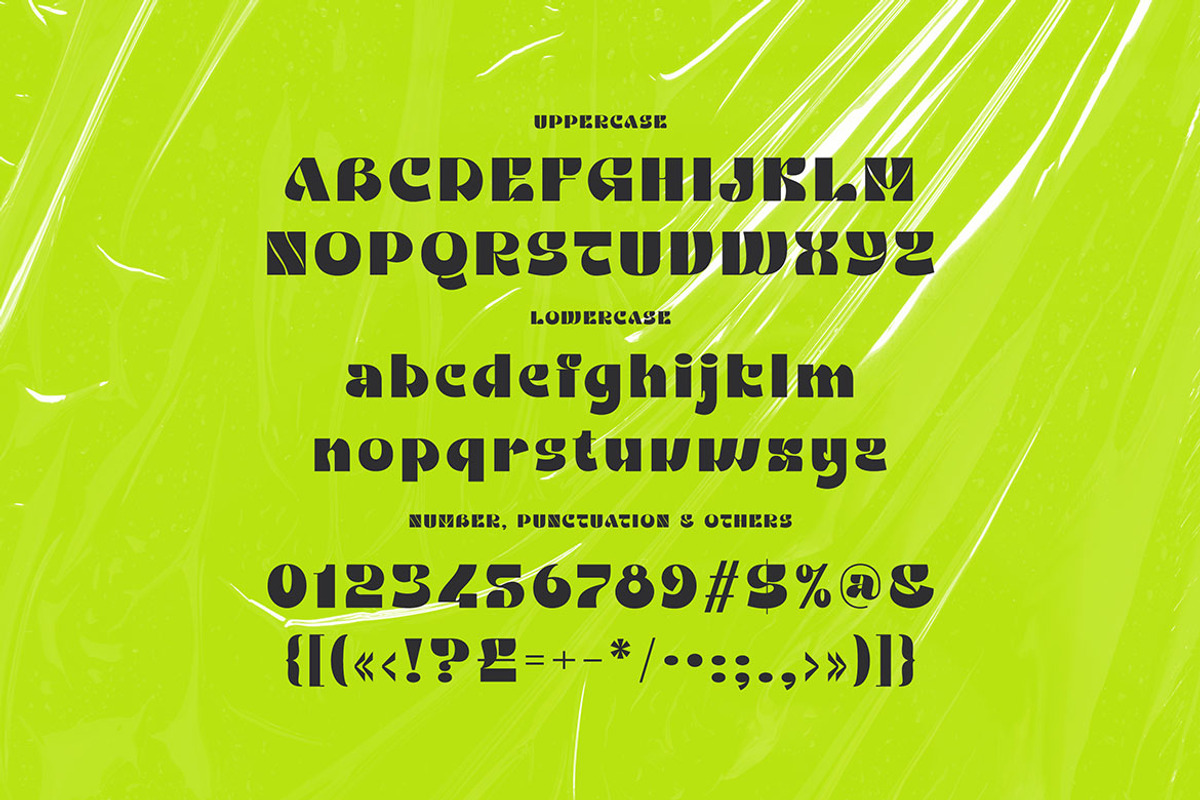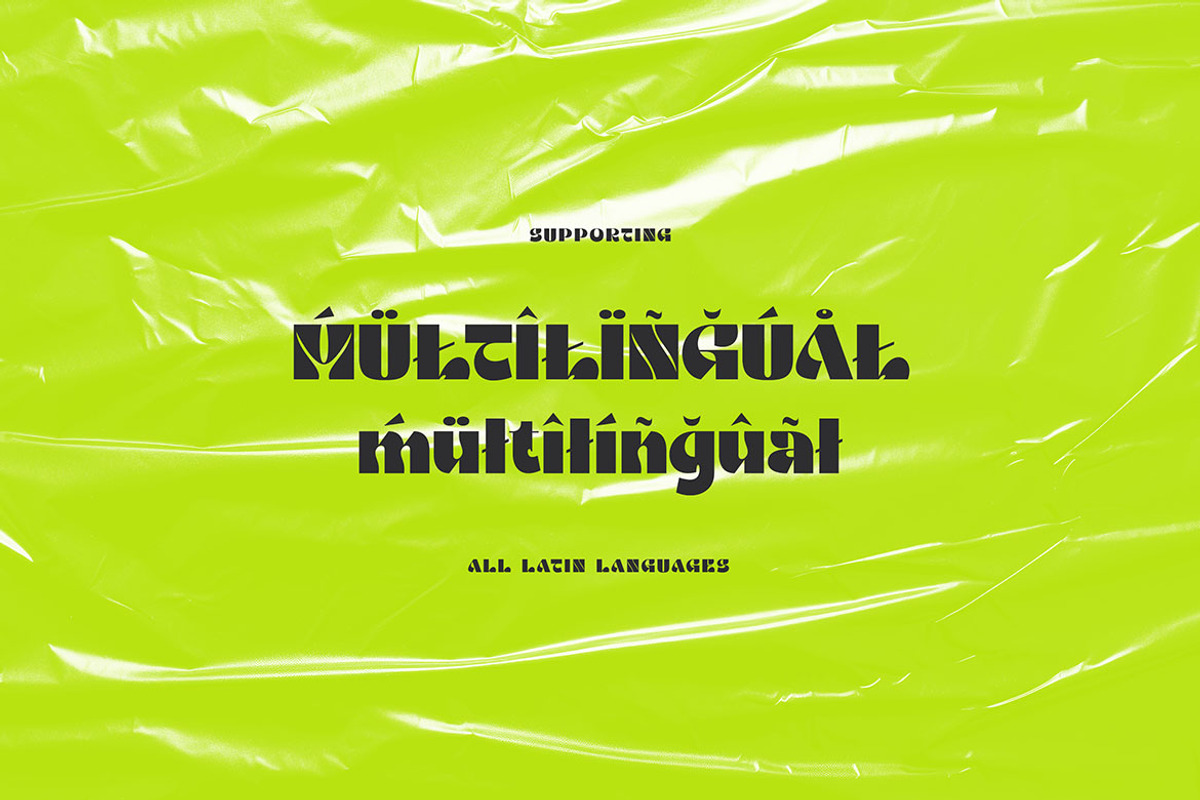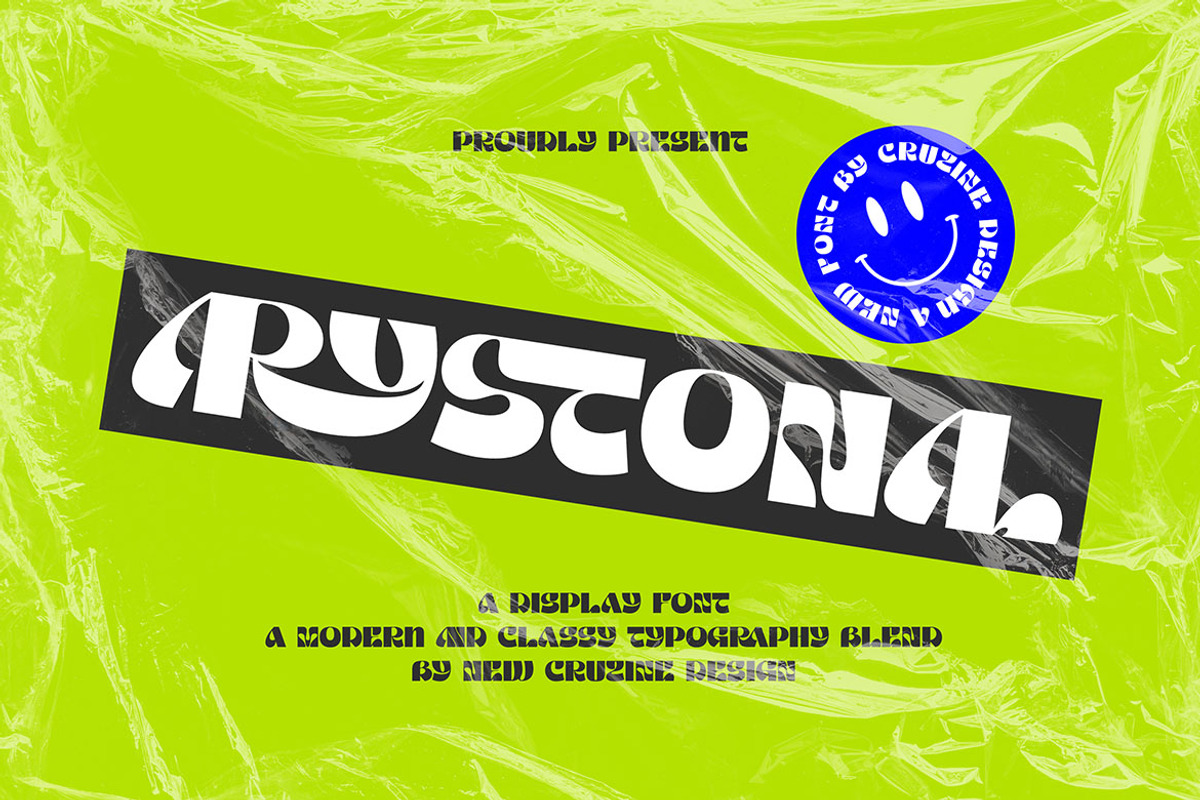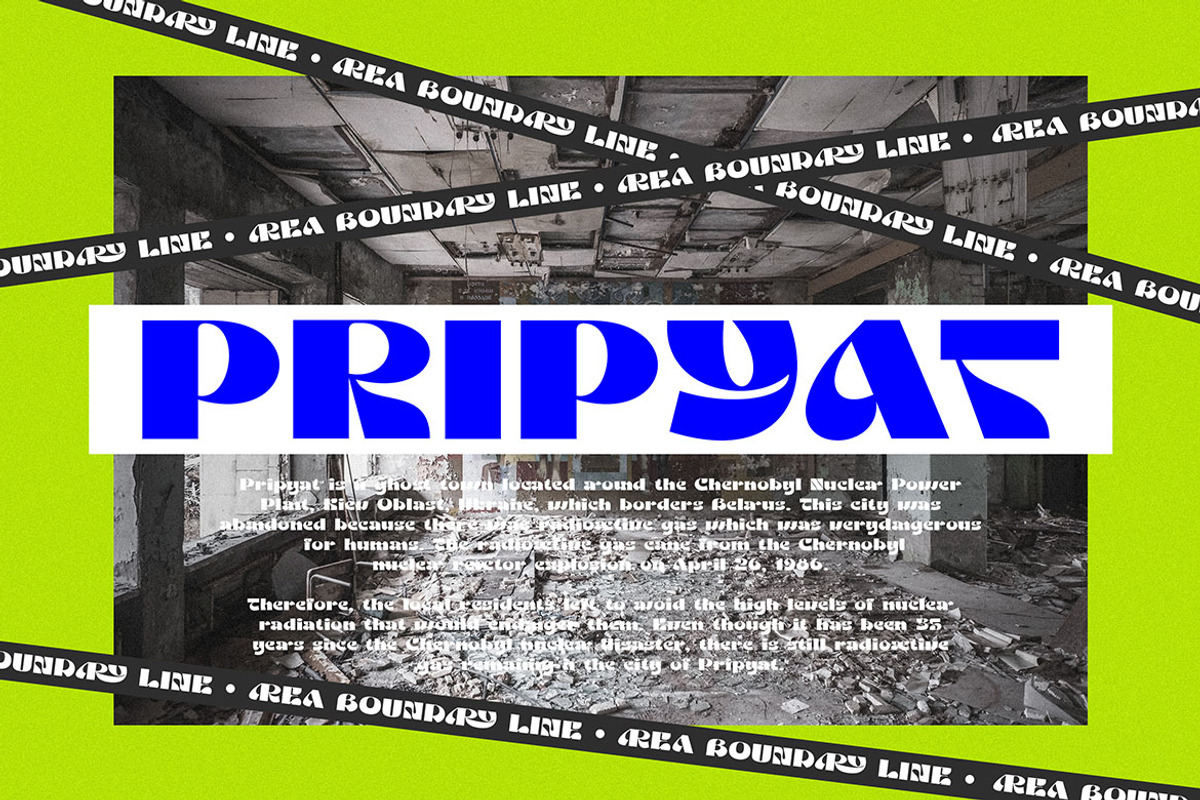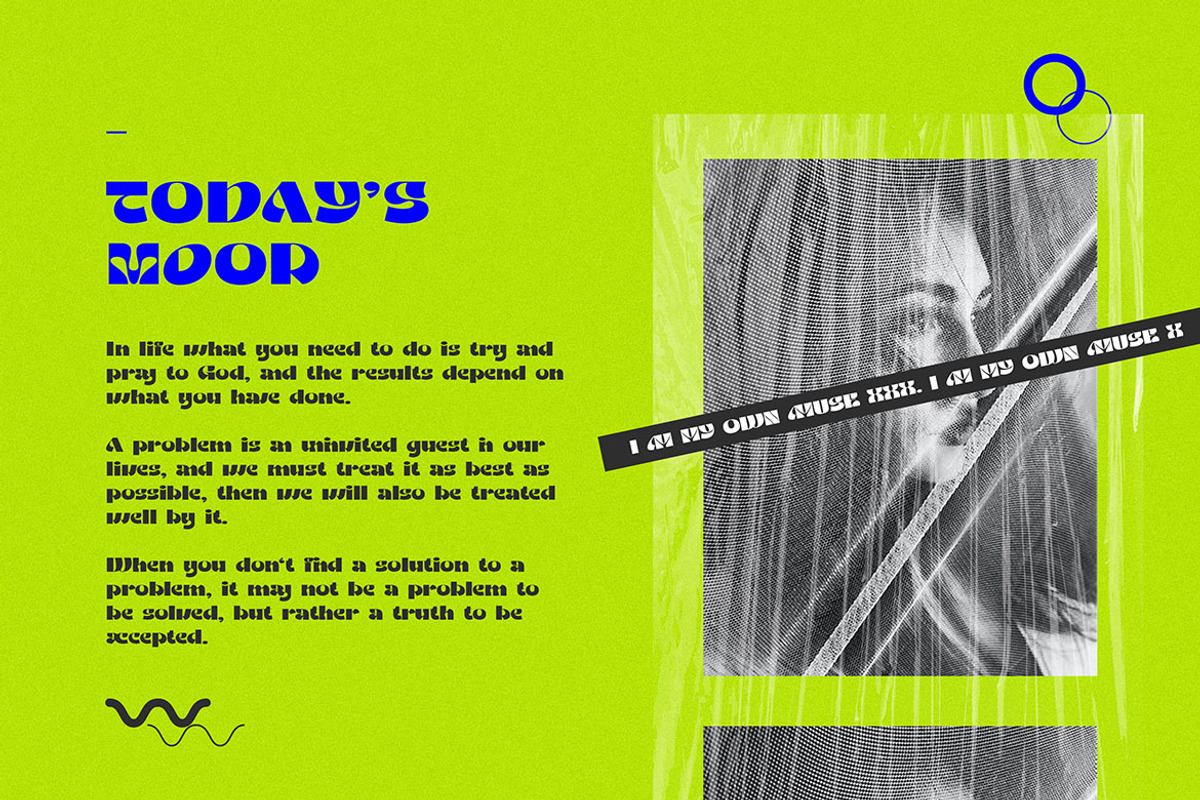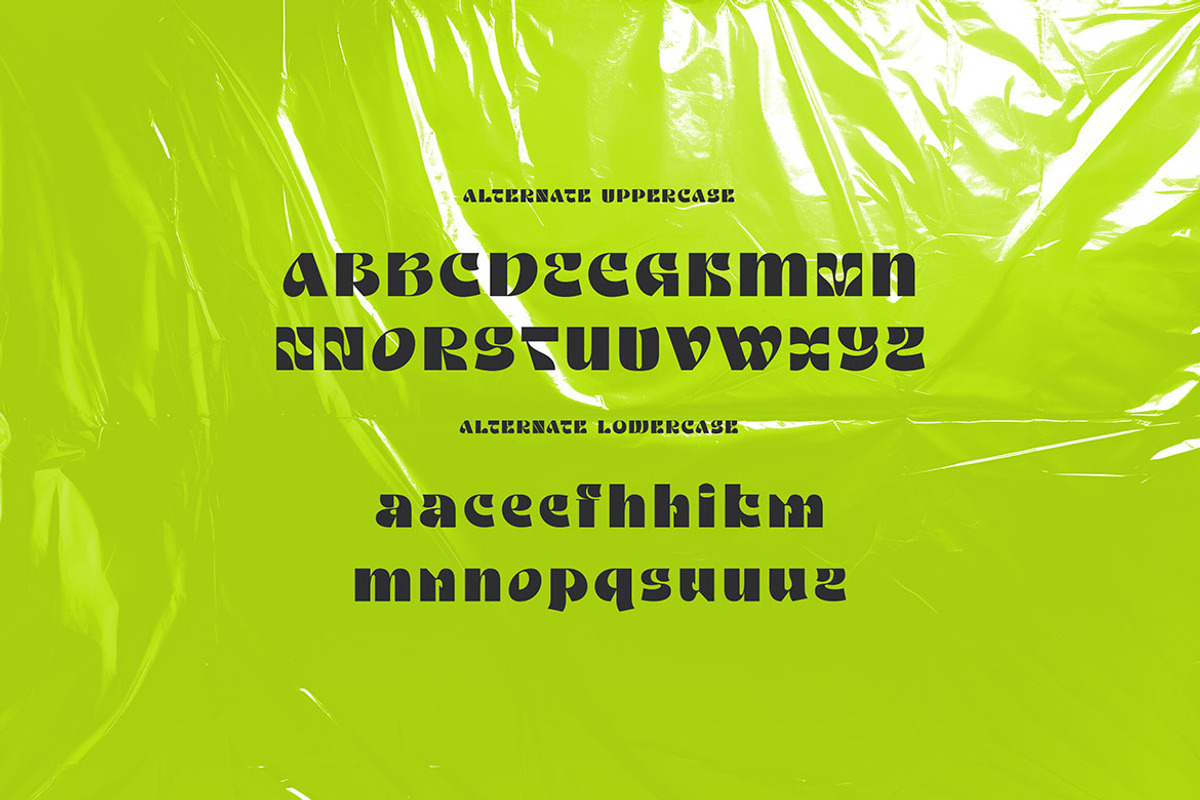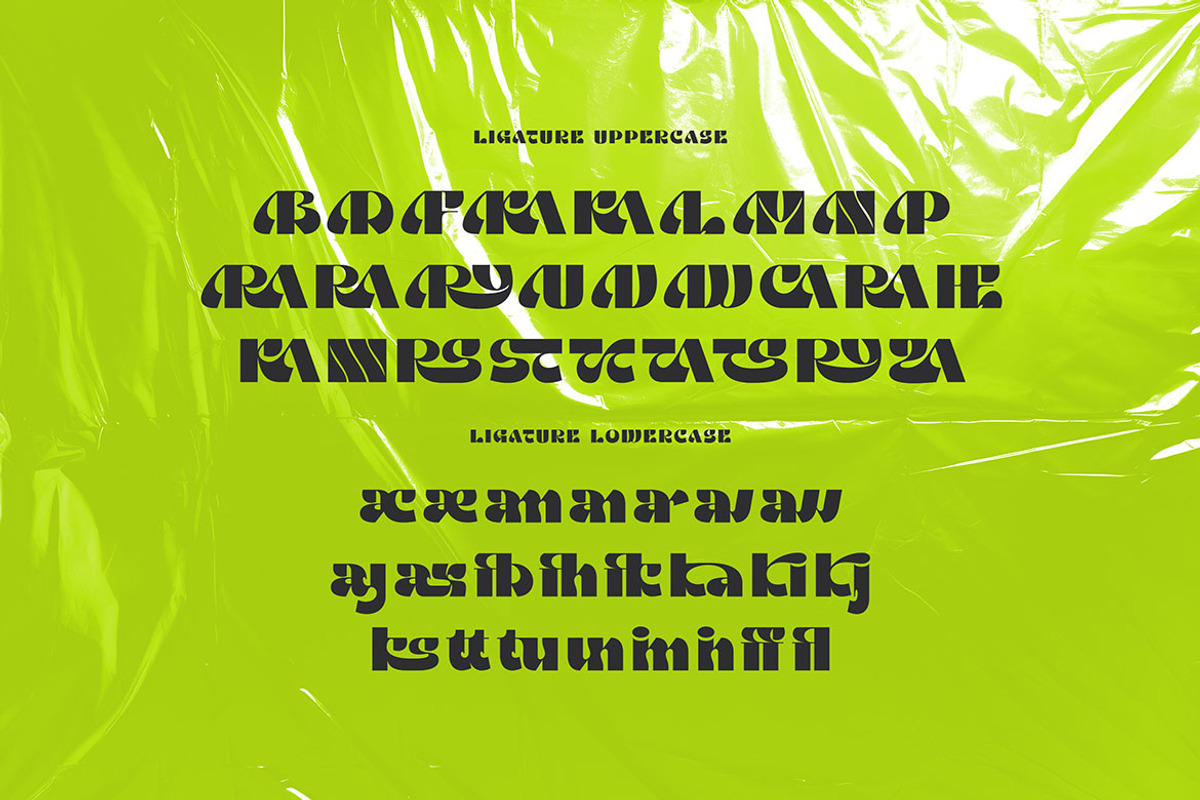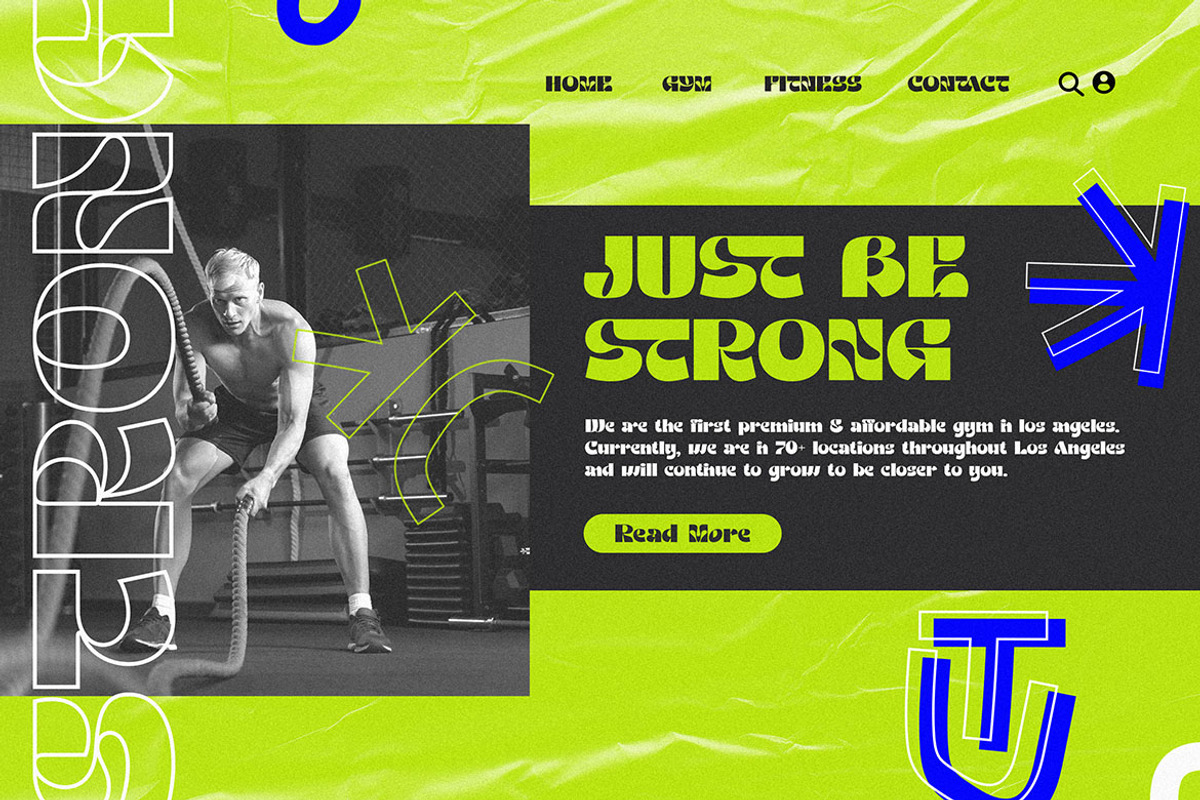
Arystonal - Bold & Modern Font
Trendy, unique, artistic, creative & bold style display font for your new fancy projects. Stylish, creative and futuristic style on Arystonal font will be great for any modern or futuristic branding project. Lot of alternates and ligatures will help you to create unique and original logo design or website header! Enjoy :)
- Alternate characters
- Lot of ligatures
- Great for modern branding projects!